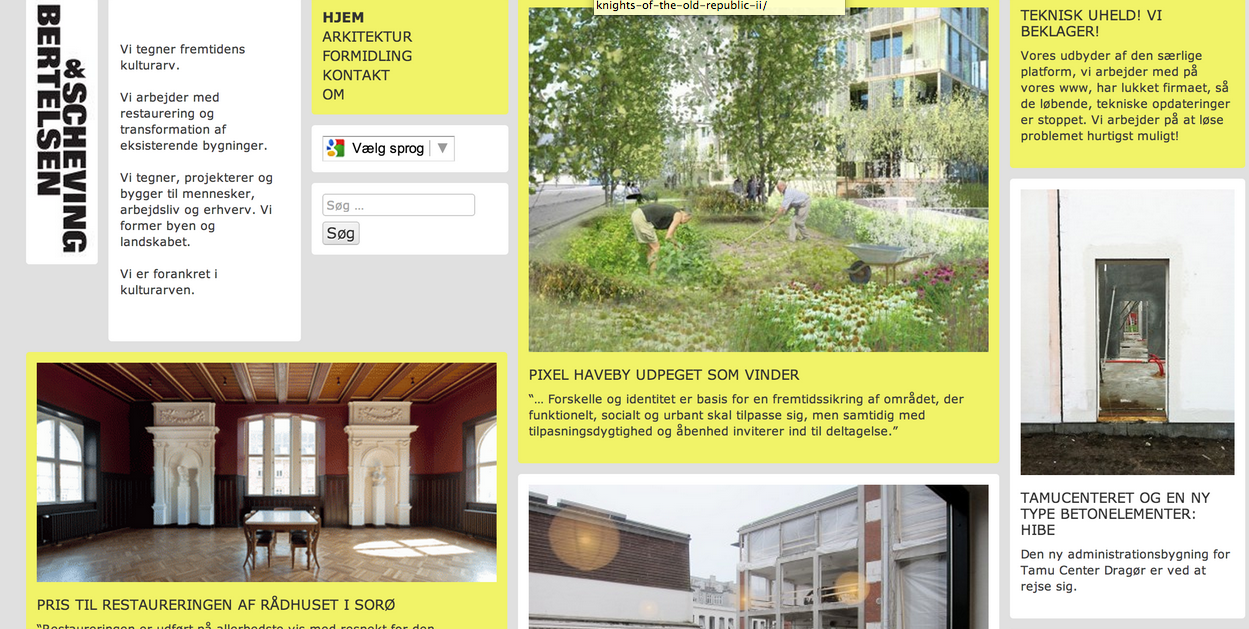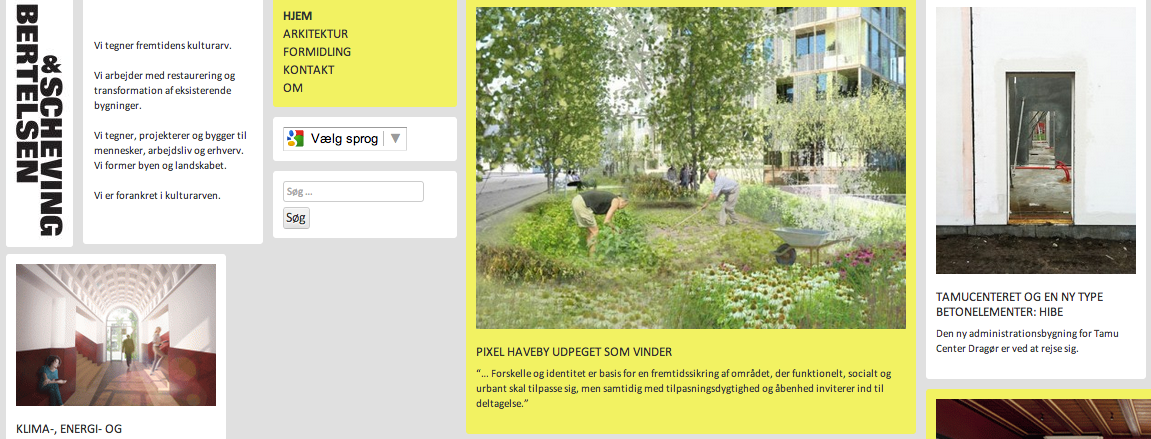
So I have a somewhat weird issue with a Retina Macbook. A website that would normally look like this:
But viewed on a Retina Macbook it looks like this:
Every piece of text looks bold and harder to read.
So is there a way to fix this on the Macbook (font smoothing or the likes?) or is it a website issue with font-rendering or choice of fonts used?
To be honest, the second shot looks better than the first.
You are using percentage in font-size. Therefore it will look different depending on the pixel ratio (which is different on the rMBP).
Any way to force a rMBP to render a website so it looks like the first picture (non-Retina)
bigger font is harder to read? thats a first. you don't mention what the screenshot from the 1st one is from (browser? OS?). different browsers under different OS's will render webpages differently.
I think this is spot-on. It seems that the browser does not correctly interpret font sizes relative to the backing factor (and thus effectively magnifying the text 2x across the board).
As stevelam suggests, try it with different browsers.